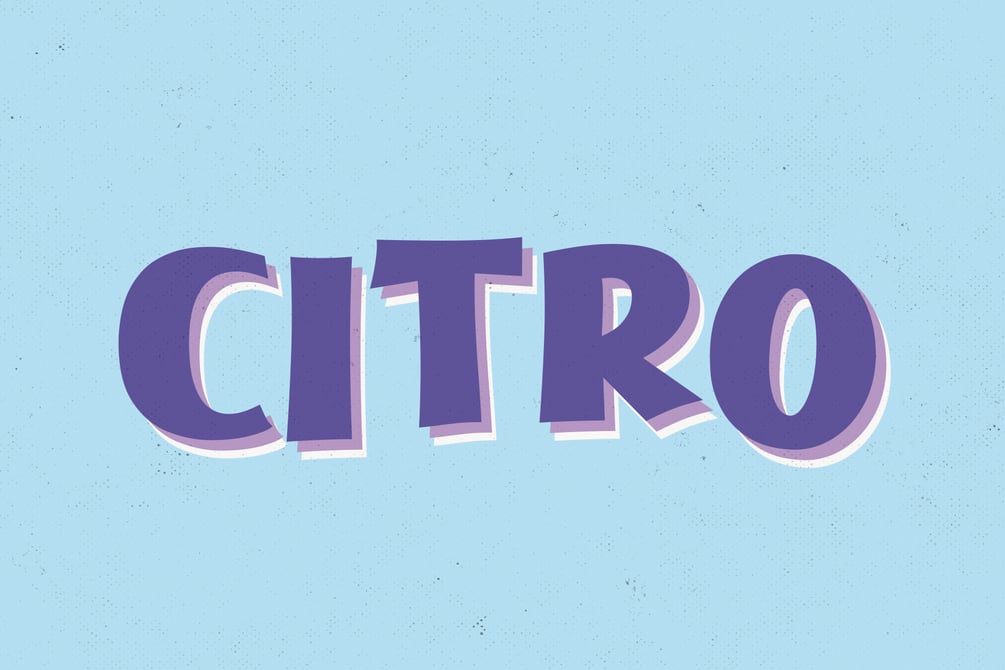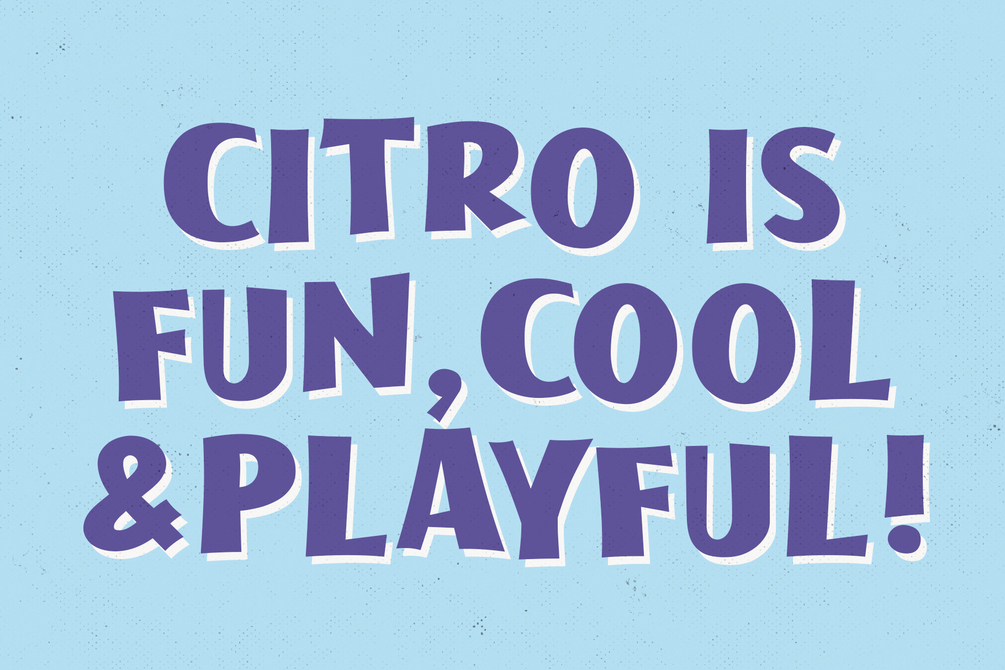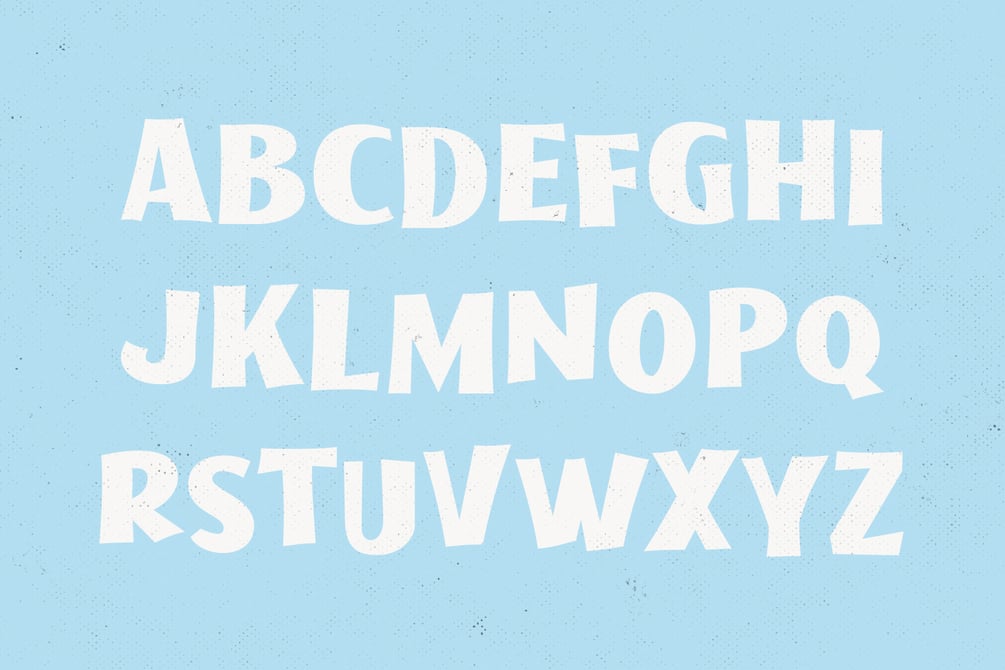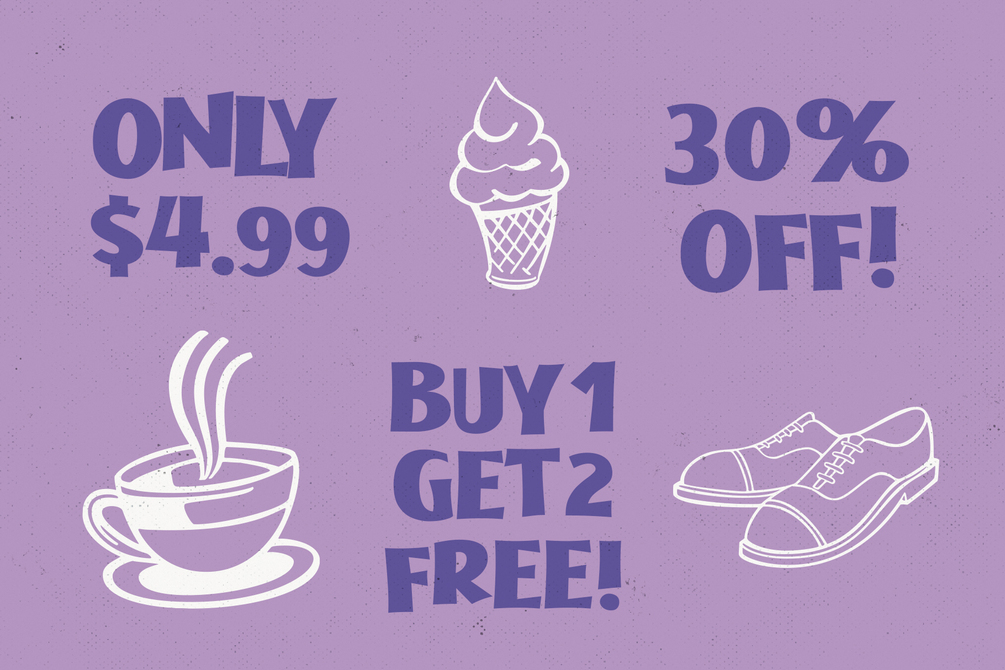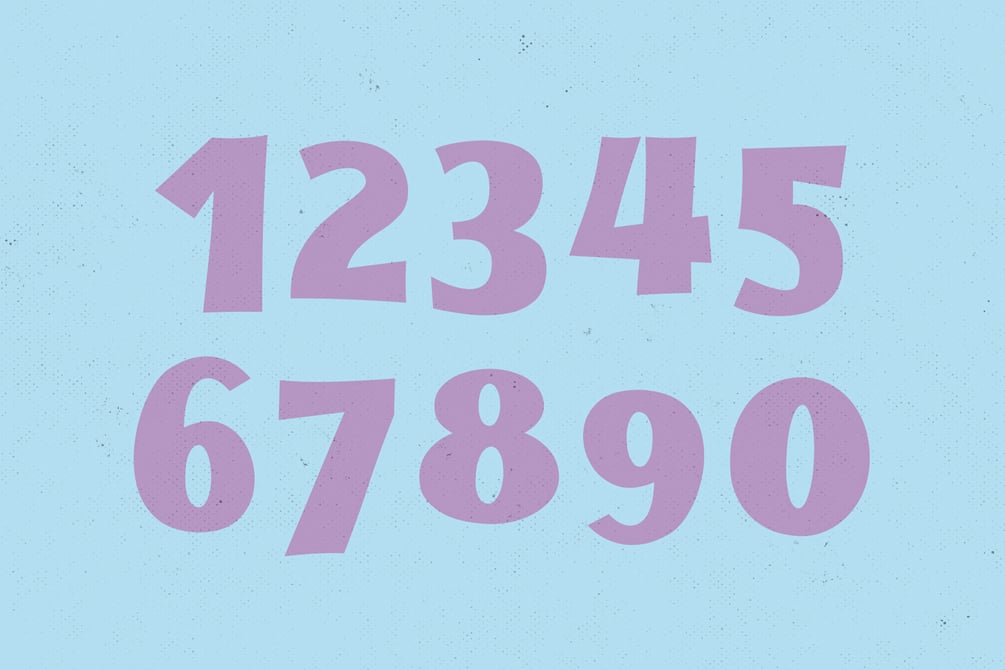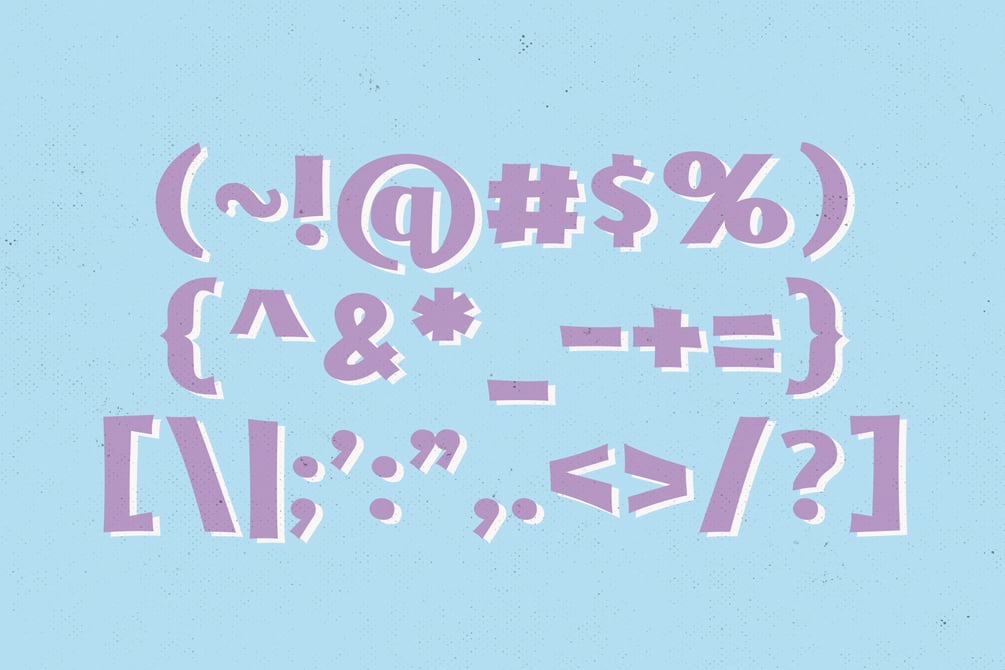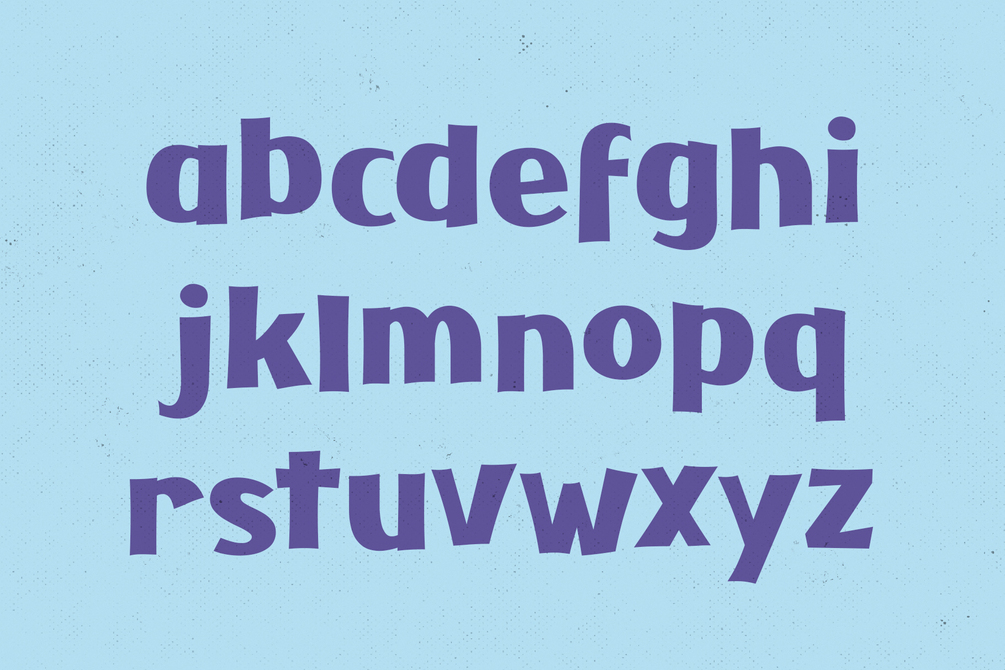
Citro - Sign Painter Typeface
Citro is a bold typeface based on retro hand-painted paper signs primarily seen in grocery stores from the 1920s through the 1970s. It features inconsistent baseline and cap heights so as you type the characters seem to dance.
Citro is fun and not too serious. It's perfect for both vintage-inspired and contemporary branding, marketing, packaging, and much more. If you're looking to create a bold impact with a retro flare, then Citro is for you!